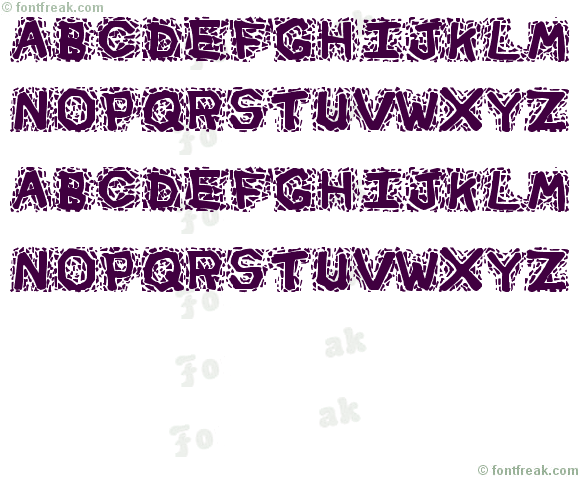
Gravel
Gravel by Cumberland is an eye-catching display typeface that exudes a playful yet rugged charm. This font falls into the category of decorative typefaces, characterized by its unique, irregular shapes that mimic the appearance of gravel stones. The design features a medium stroke weight with varying contrasts, offering a hand-crafted feel while maintaining readability. The spacing between characters is slightly loose, enhancing its whimsical nature and adding to its overall visual impact.
Gravel is an excellent choice for a variety of creative applications. It shines in contexts like event posters, where its bold and unconventional design can capture attention. Additionally, it works beautifully for branding small businesses, particularly those in the outdoor or adventure sectors, as it evokes a sense of nature and earthiness. Restaurant menus can also benefit from Gravel’s unique flair, providing a memorable touch that aligns well with casual dining atmospheres. Furthermore, this font can be utilized in children’s book illustrations, where its playful design can engage young readers effectively.
What sets Gravel apart is its ability to blend a fun, artistic style with practicality. It serves as both a statement piece and a functional text option, making it versatile for various design needs. With Gravel font free download available, users can easily integrate this charming typeface into their creative endeavors, ensuring their projects are both eye-catching and memorable.